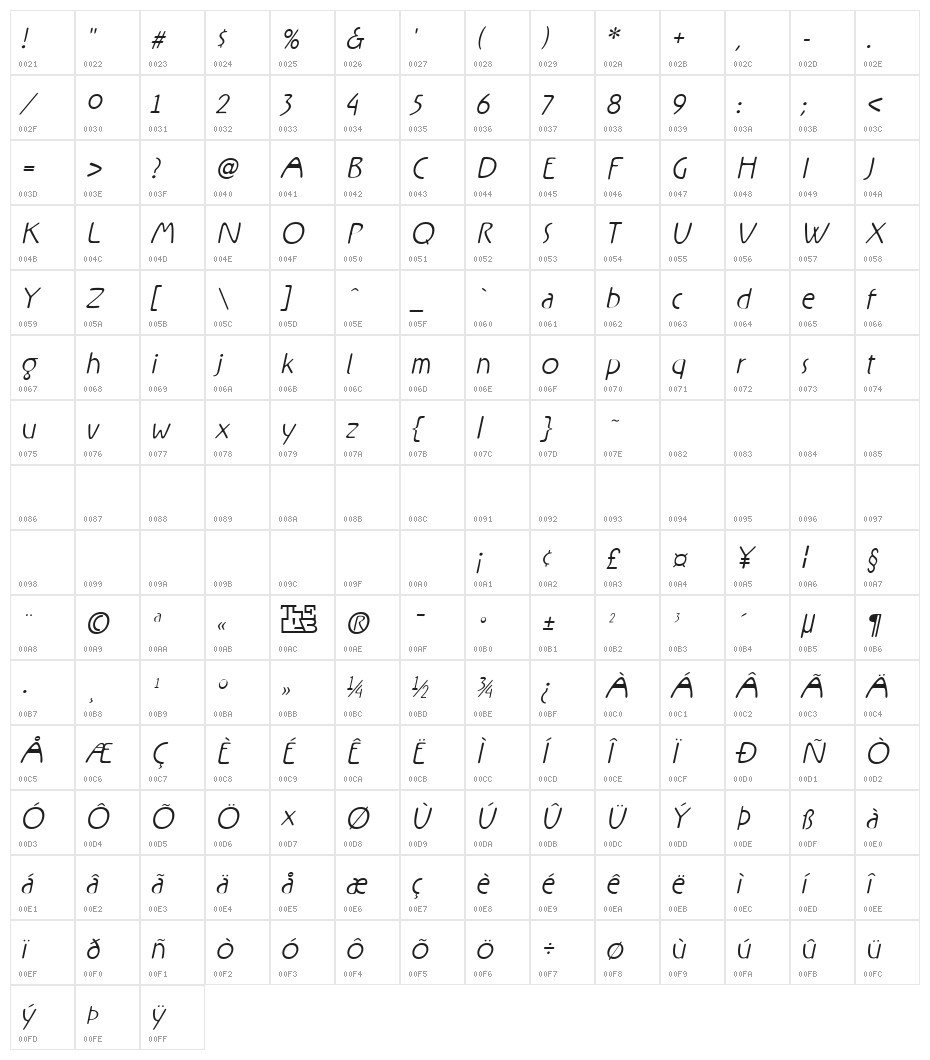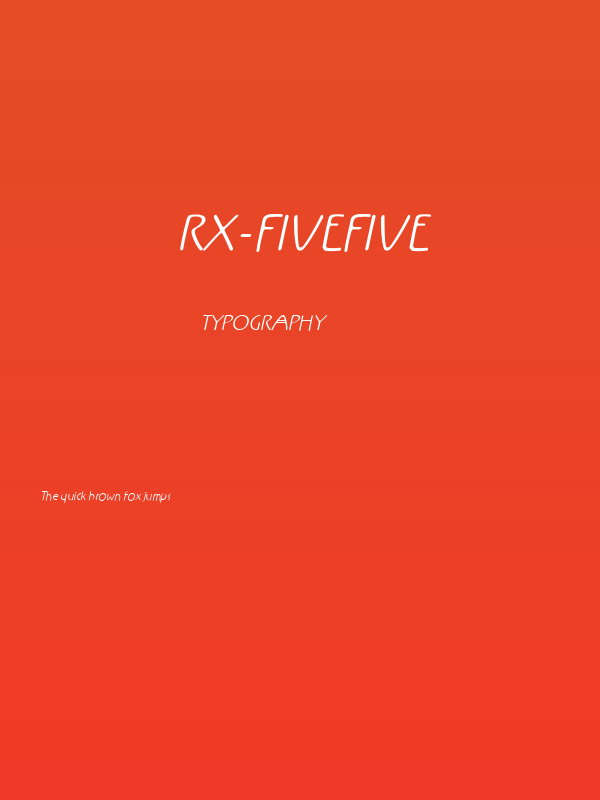
Rx-FiveFive Font
Rx-FiveFive Description
This font features a sleek, modern design with a slight slant, giving it a dynamic and forward-moving appearance. The characters are crafted with smooth, flowing lines that create a sense of elegance and sophistication. The uppercase letters are tall and slightly narrow, while the lowercase letters maintain a consistent style with rounded edges. Numbers and special characters are designed to complement the overall aesthetic, ensuring readability and visual appeal. The font's unique style makes it suitable for a variety of creative applications.
| Proposed Projects | Ideal for branding, advertising, and editorial design projects where a modern and elegant touch is desired. |